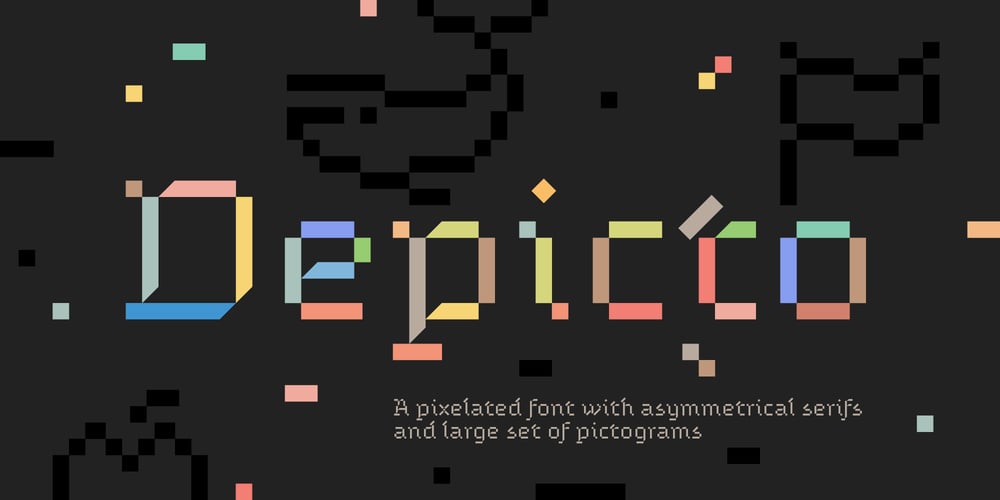
Depicto Font Family was designed by Michael Rafailyk and published by Michael Rafailyk. Depicto contains 3 styles and family package options. A pixelated typeface with asymmetrical serifs intended to depict emojis in coarse mosaic shapes and represented in two styles that perfectly complement each other โ Mono (casual font) and Mosaic (color font). The main font feature is a large set of pictograms, which are activated using the Stylistic Set and typed right in a text with a keywords like ๐ :happy: ๐ :pear: :rose: :horse: :bike: :house: and so on.Depicto Mosaic (color font) is represented in two versions โ COLR and SVG. Depicto Mosaic SVG version is needed for Adobe applications like Photoshop, Illustrator, InDesign and refers to Desktop license. Depicto Mosaic COLR version is needed for all the web browsers and refers to Webfont license. Also, COLR version needed for any desktop applications aside of Adobe and respectively refers to Desktop license. If you not sure which one version you need, just option Depicto Mosaic subpackage which includes both versions by the same price.Read more about Depicto font family concept, features, pictograms, color font, emoji skin tone, how to use it, and the applications support: https://michaelrafailyk.com/depictoScripts: Latin, Greek, Cyrillic, Georgian, Arabic, HebrewLanguages: 500+